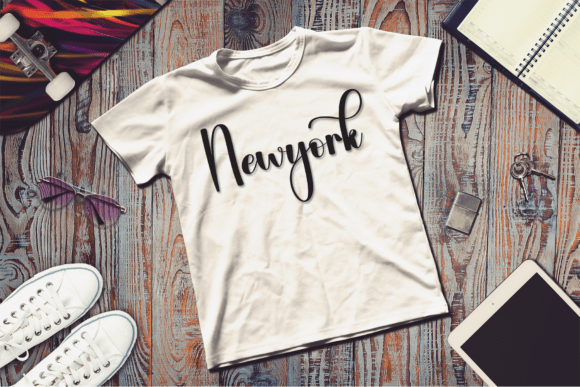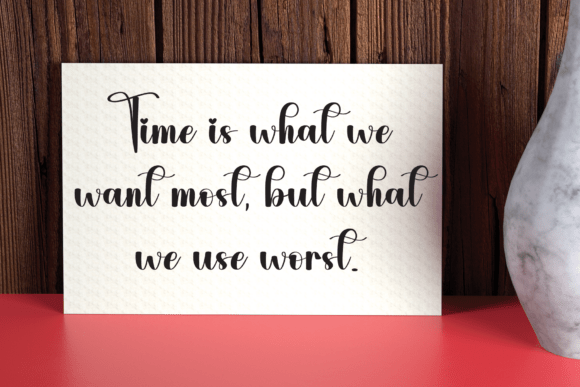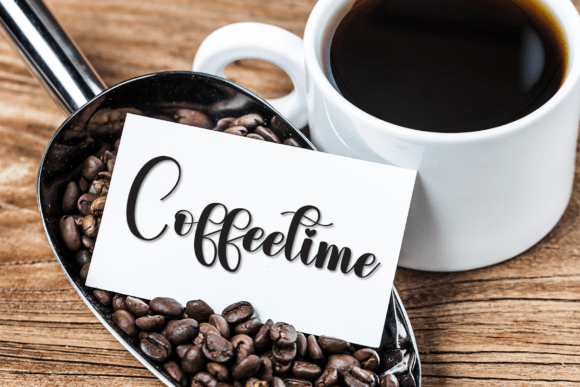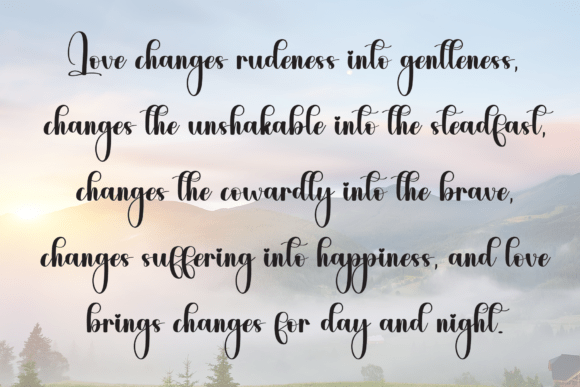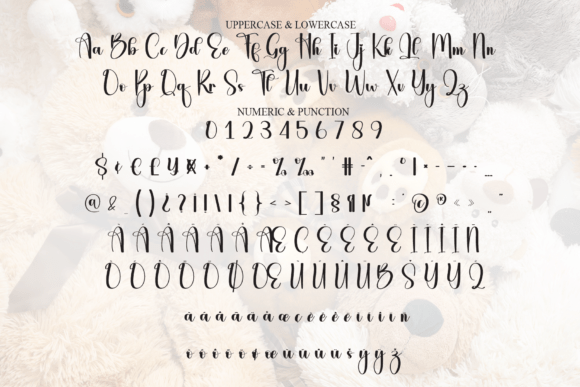
Babydoll Font: Elevate Your Designs with Elegance and Playfulness
In the world of typography, few fonts manage to strike a balance between elegance and playfulness as effortlessly as Babydoll. This stylish handwritten script font is a gem for designers and crafters looking to infuse their projects with a personal touch. With its flowing curves and natural rhythm, Babydoll brings a charming sophistication to invitations, branding, social media, and more.
The Essence of Babydoll Font
Babydoll is more than just a font; it’s an expression of creativity and warmth. Its design is characterized by graceful strokes that dance across the page, creating a sense of movement and fluidity. This handwritten script font is perfect for those who want to add a human touch to their designs, making it ideal for projects that require a personal and inviting feel.
Key Features of Babydoll Font
- Elegant and Playful: Babydoll strikes the perfect balance between elegance and playfulness, making it versatile for various design projects.
- Flowing Curves: The font’s natural rhythm and flowing curves give it a dynamic and lively feel.
- Handwritten Script: As a handwritten script font, Babydoll adds a personal touch to any project, making it stand out.
- Versatile: Suitable for invitations, branding, social media posts, and more, Babydoll is a versatile addition to any designer’s toolkit.
Uses of Babydoll Font
The versatility of Babydoll makes it suitable for a wide range of applications. Here are some popular uses:
- Invitations: Whether it’s a wedding invitation, birthday party invite, or baby shower announcement, Babydoll adds a touch of elegance and charm.
- Branding: Use Babydoll to create a unique and memorable brand identity that stands out from the crowd.
- Social Media: Elevate your social media posts with Babydoll’s playful and sophisticated look, making your content more engaging and shareable.
- Stationery: Add a personal touch to your stationery, including greeting cards, thank you notes, and journals.
Why Choose Babydoll Font?
In a sea of fonts, Babydoll stands out for its unique blend of elegance and playfulness. Here are a few reasons why designers and crafters choose Babydoll:
- Unique Style: Babydoll’s distinctive style ensures your designs are always memorable and eye-catching.
- Easy to Read: Despite its elegant and playful nature, Babydoll remains highly legible, making it practical for a variety of uses.
- Customizable: The font’s flexibility allows for easy customization to fit your project’s specific needs.
Babydoll font is a stylish and versatile addition to any designer’s collection. Its unique blend of elegance and playfulness makes it perfect for a wide range of projects, from invitations and branding to social media and stationery. With its flowing curves, natural rhythm, and charming appearance, Babydoll is sure to bring warmth, sophistication, and creativity to your designs. Discover the beauty of Babydoll and elevate your typography to new heights.